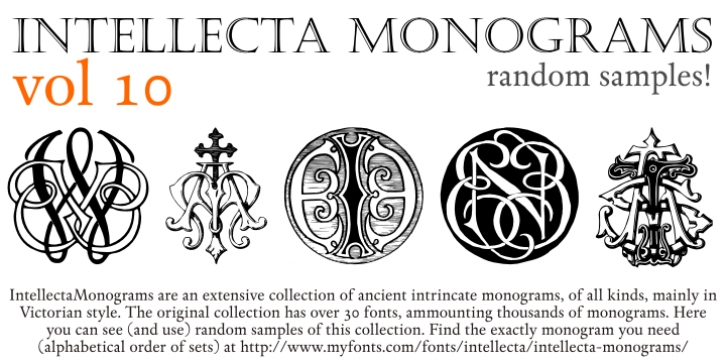
Intellecta Monograms Random Samples Nine, by Intellecta Design
Intellecta Monograms Random Samples Nine is a random and limited set version of Intellecta Monograms, an extensive collection of fonts ammouting thousands of intrincated and vintage monograms, mainly in Victorian style, a Intellecta's best-seller over the last five years. To purchase the original fonts (alphabetical order of sets) and commercial licences, please, visit: